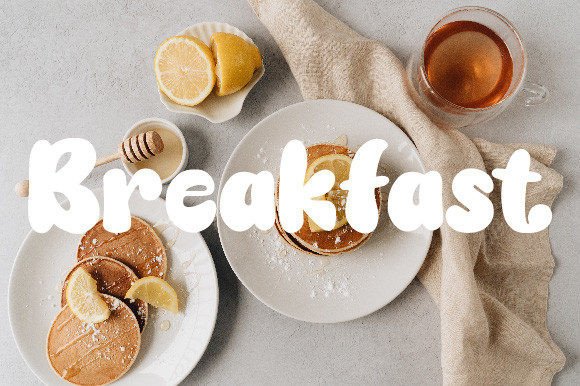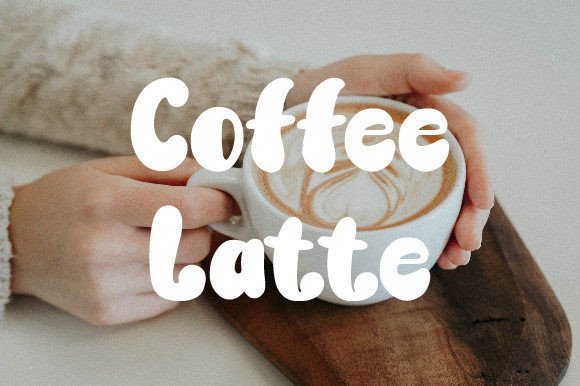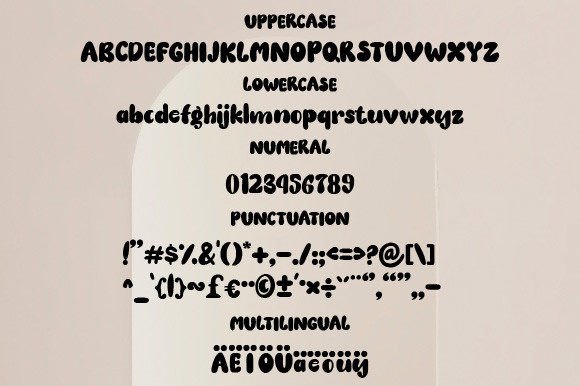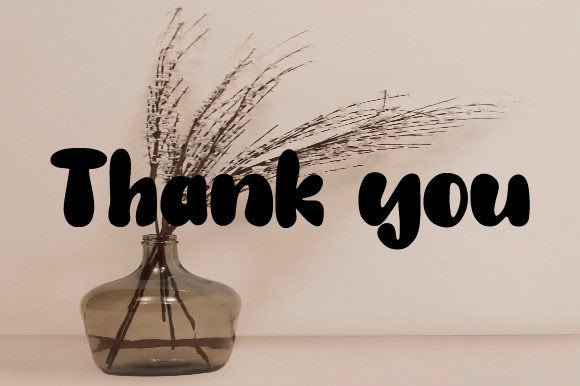
Introduction to Rasta Font
Rasta is a type of thick handwriting font made with cute characters.
This font is good for posters, clothes, screen printing, and so much more .
Key Features of Rasta Font
Why Choose Rasta Font?